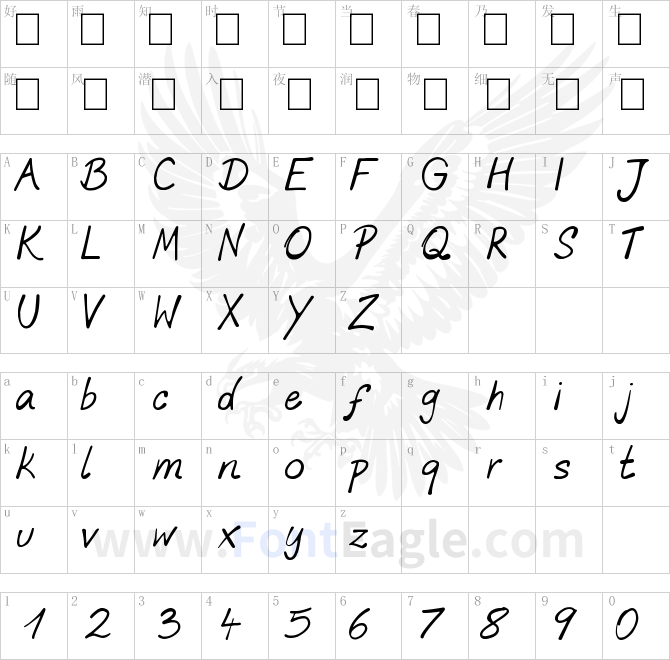
phitradesign-INK is a great font, widely used in graphic design, single-page menu design, poster design and other fields, and is deeply loved by designers.phitradesign-INK download.